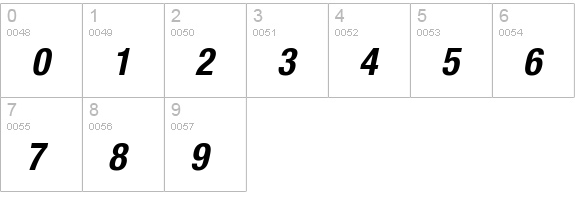
Sans Condensed BOLDITALIC is a distinctive, condensed-width variant in the Sans typeface family \xE2\x80\x94 well suited to design and typography projects.
Introducing Sans Condensed BOLDITALIC font, a striking and versatile typeface that exudes a sense of boldness and elegance. This font is the perfect choice for those looking to make a statement with their designs, whether it be for branding, advertising, or any creative project that requires a touch of sophistication. With its condensed form, this font is designed to save space while still maintaining legibility and impact. The bold and italic styles further enhance its visual appeal, adding an extra level of emphasis and flair to your text. One of the standout features of this font is that it is freely available to download at FontsMarket.com. This means that you can access and utilize this stunning typeface without any cost, making it an excellent option for designers on a budget or those who simply appreciate the value of free resources. Whether you're creating eye-catching headlines, designing sleek logos, or crafting elegant invitations, Sans Condensed BOLDITALIC font is sure to elevate your work to new heights. Its clean and modern aesthetic, combined with the bold and italic styles, will command attention and leave a lasting impression on your audience. Don't miss out on the opportunity to add this remarkable font to your collection. Download Sans Condensed BOLDITALIC now, free of charge, at FontsMarket.com, and unlock a world of creative possibilities.